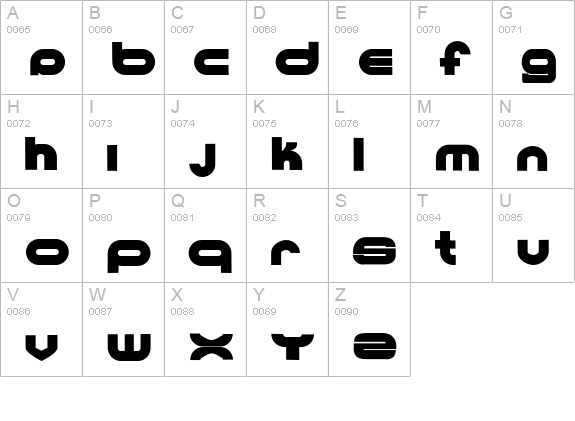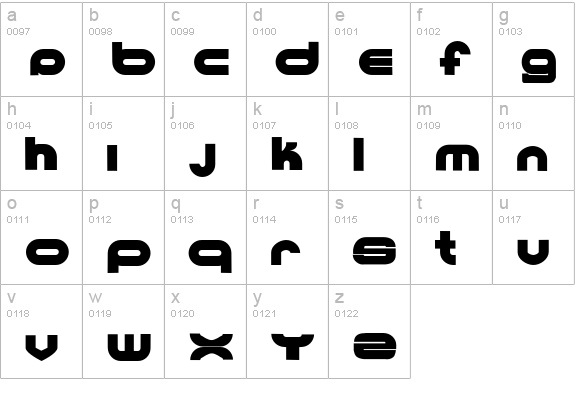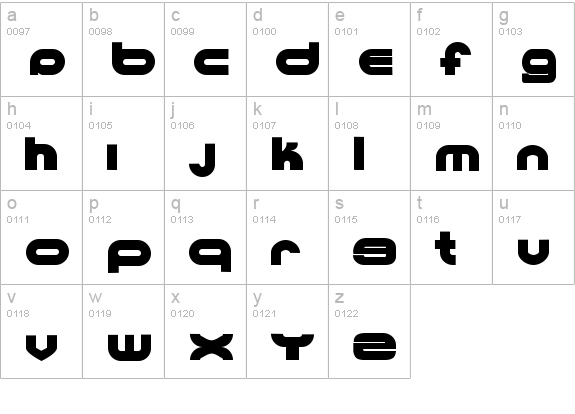
Ultraworld Font Details
Ultraworld font is a stunning typeface that takes typography to a whole new level. With its sleek and futuristic design, this font is perfect for projects that require a modern and edgy look. Its unique and intricate letterforms make it stand out from the crowd, ensuring that your designs will make a lasting impression. One of the best things about Ultraworld font is that it is completely free. Yes, you read that right! This extraordinary font is freely available to download at FontsMarket.com, making it accessible to designers, creatives, and enthusiasts alike. Whether you're working on a personal project or a professional design, you can now easily bring your vision to life without breaking the bank. Ultraworld font offers a plethora of options, allowing you to experiment and customize your designs to perfection. From bold headlines to elegant logos, this font can do it all. Its versatility and adaptability make it suitable for a wide range of applications, from branding and advertising to web design and print media. The attention to detail in Ultraworld font is truly remarkable. Every curve, every line has been meticulously crafted to ensure a seamless reading experience. The letters flow effortlessly, creating a harmonious balance between form and function. Whether you're using it for body text or display purposes, this font guarantees legibility and readability. So why settle for ordinary when you can have extraordinary? Download Ultraworld font for free at FontsMarket.com and elevate your designs to new heights. With its captivating style and limitless possibilities, this font is sure to be a valuable addition to your creative toolkit. Don't miss out on this incredible opportunity to enhance your designs with a font that is both visually striking and freely available. Get Ultraworld font today and let your creativity soar!